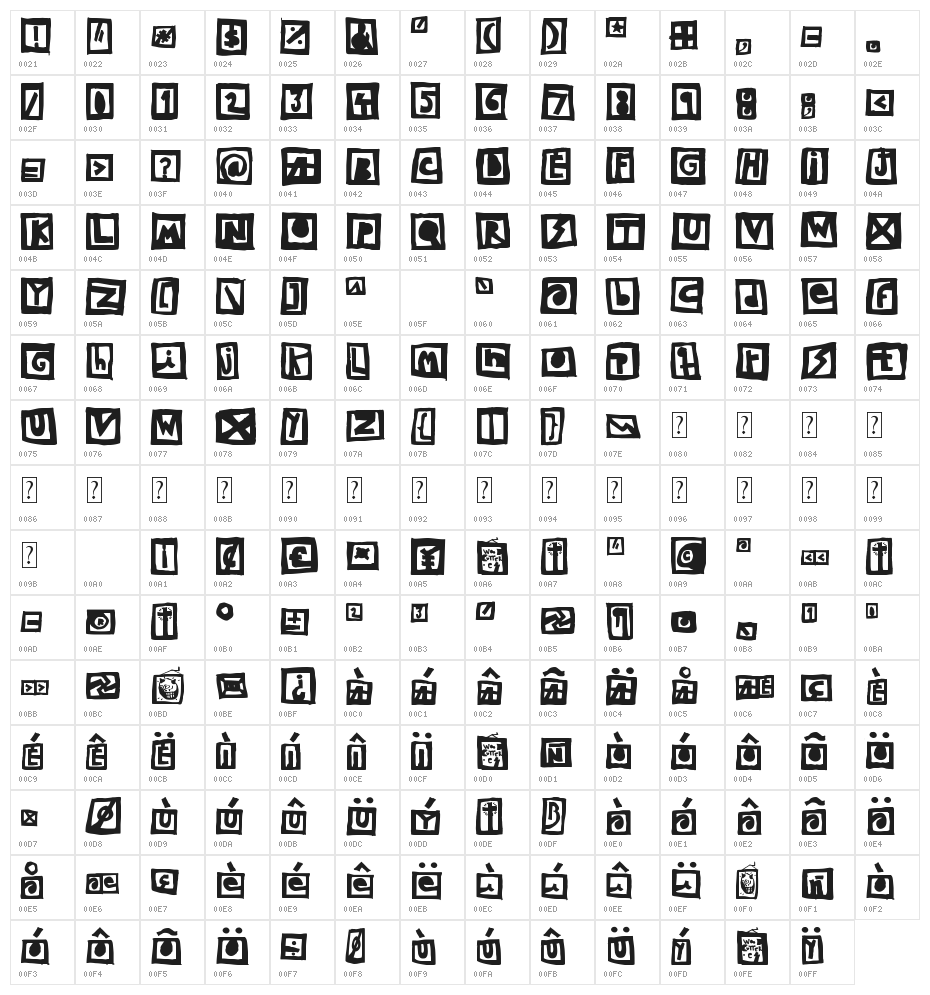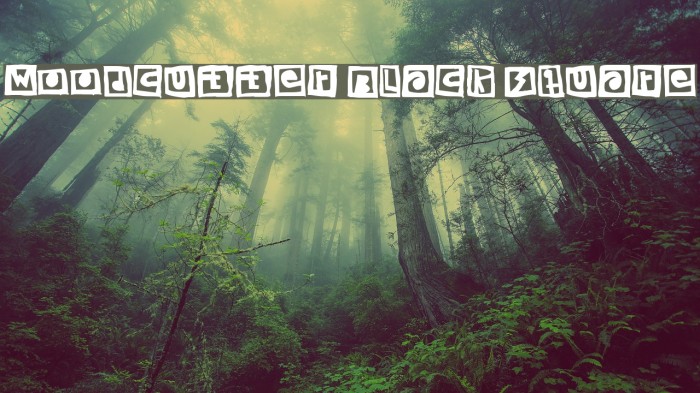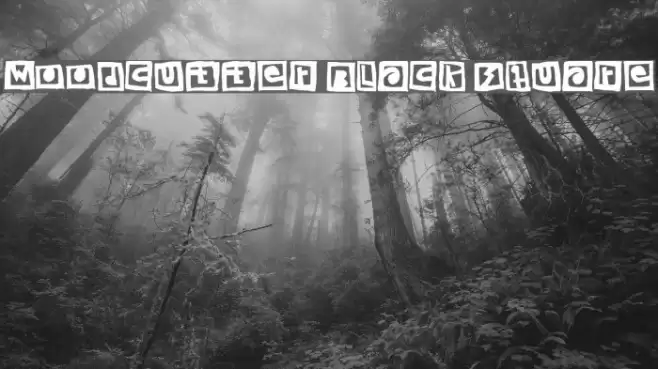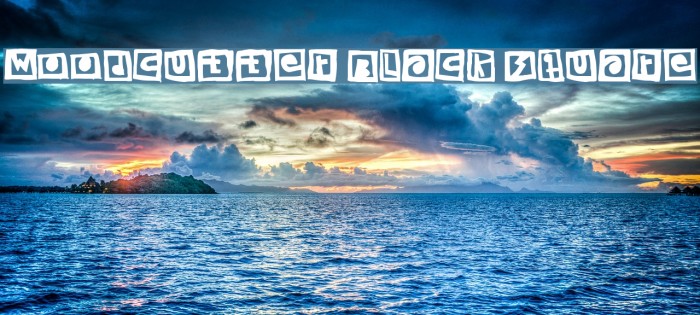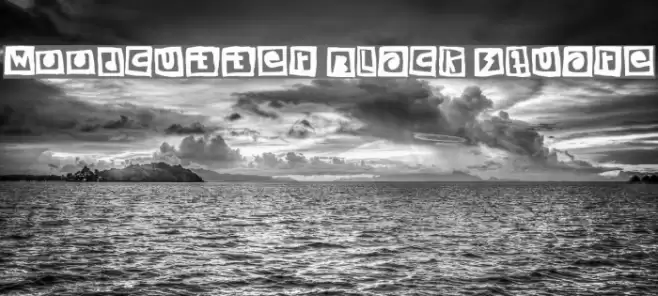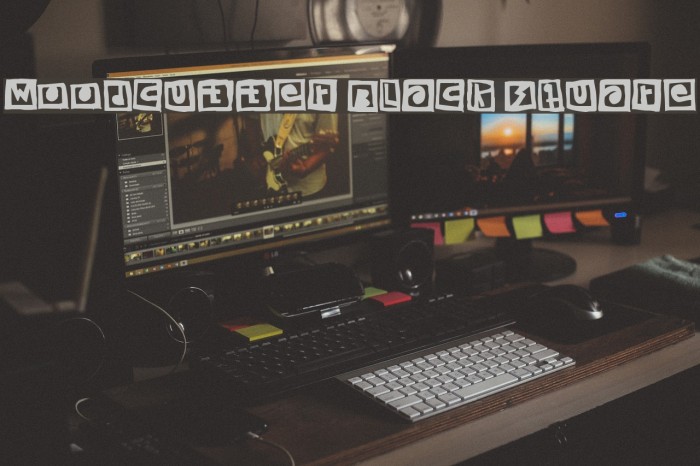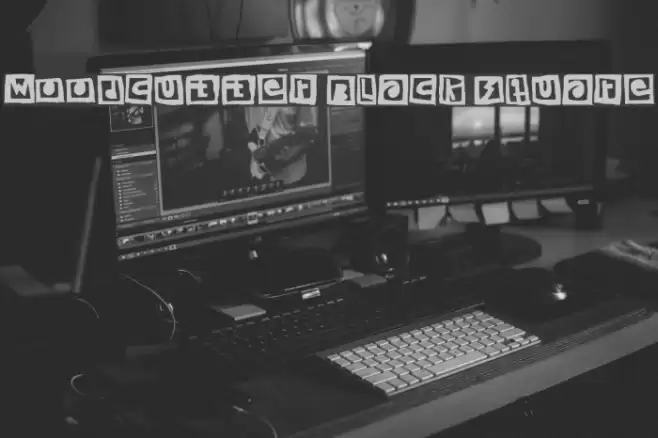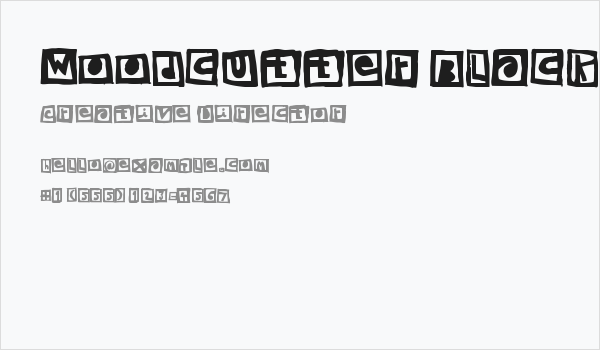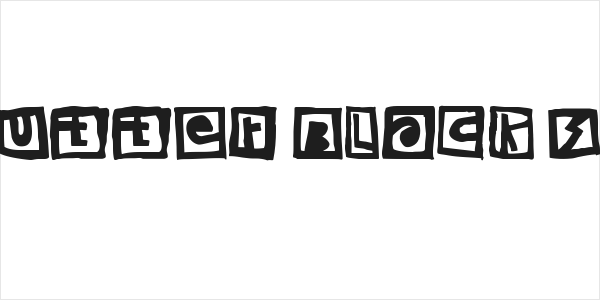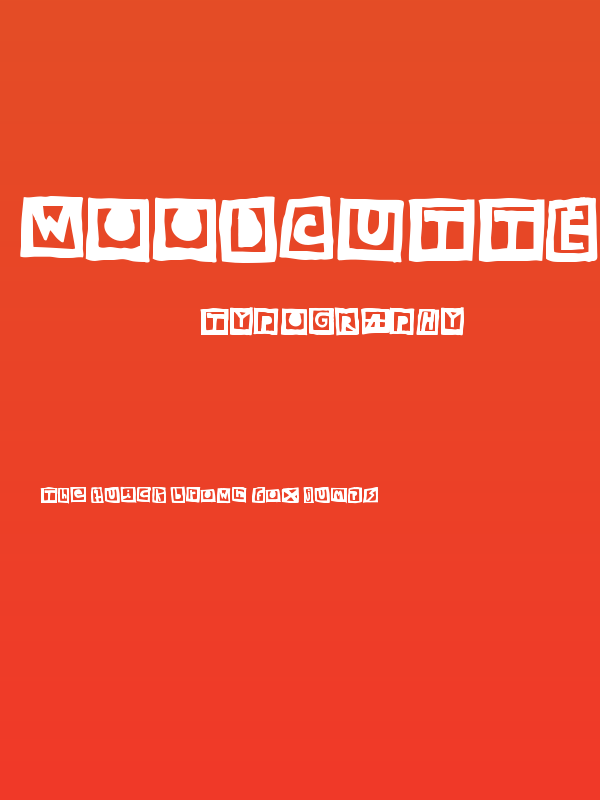
Woodcutter Black Square Font
Woodcutter Black Square Description
This font features bold, blocky characters enclosed within square outlines, creating a striking and impactful visual style. Each letter and number is distinctly separated by its own square, giving the font a unique, almost stencil-like appearance. The characters are uniformly bold, with thick strokes that ensure high visibility and readability. The design is playful yet assertive, making it suitable for attention-grabbing headlines or artistic projects. The font's quirky and irregular shapes add a sense of dynamism and creativity, making it ideal for projects that require a bold statement.
| Proposed Projects | Ideal for posters, headlines, logos, and creative projects that require a bold and artistic touch. |